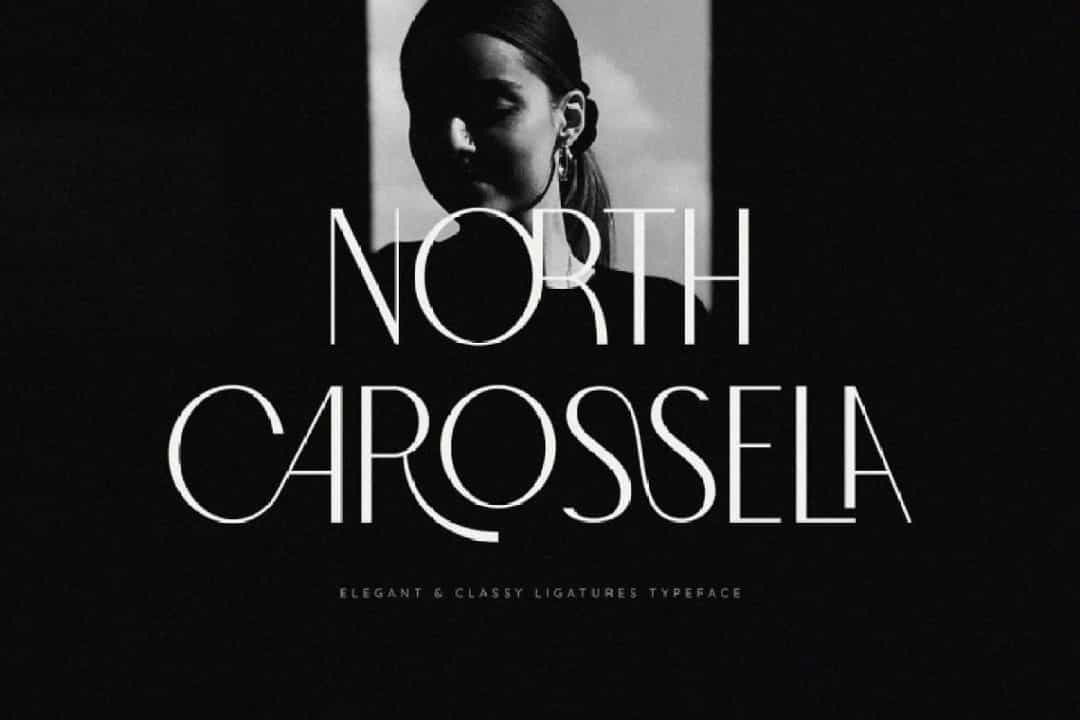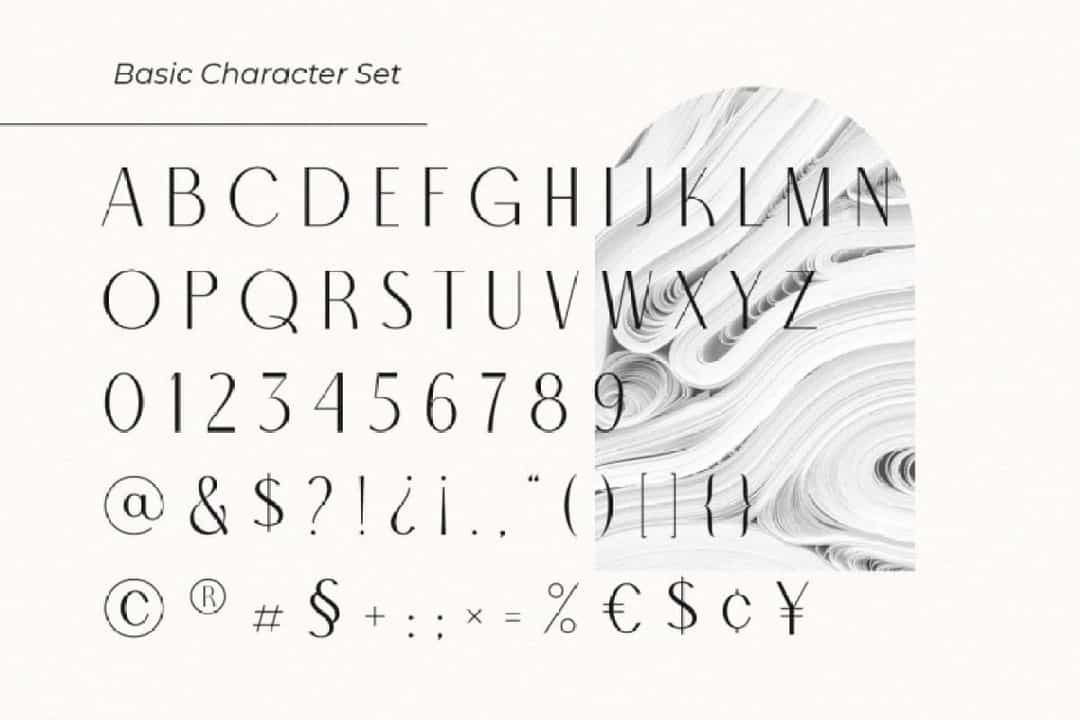
Discover North Carossela Ligature Sans Typeface, part of the Sans Serif Basic collection—a versatile and unique font perfect for adding a personal touch to your projects. Download it for free and enjoy crafting designs with style, from invitations to social media posts. This font is available exclusively for personal use, giving you the freedom to create without limits. Unlock your creativity with North Carossela Ligature Sans Typeface today!
North Carossela is a chic and modern display sans font, and it is now ready for you to incorporate into your designs! Perfect for lending today’s style or chic style into their designs, North Carossela was developed to fit these demands!